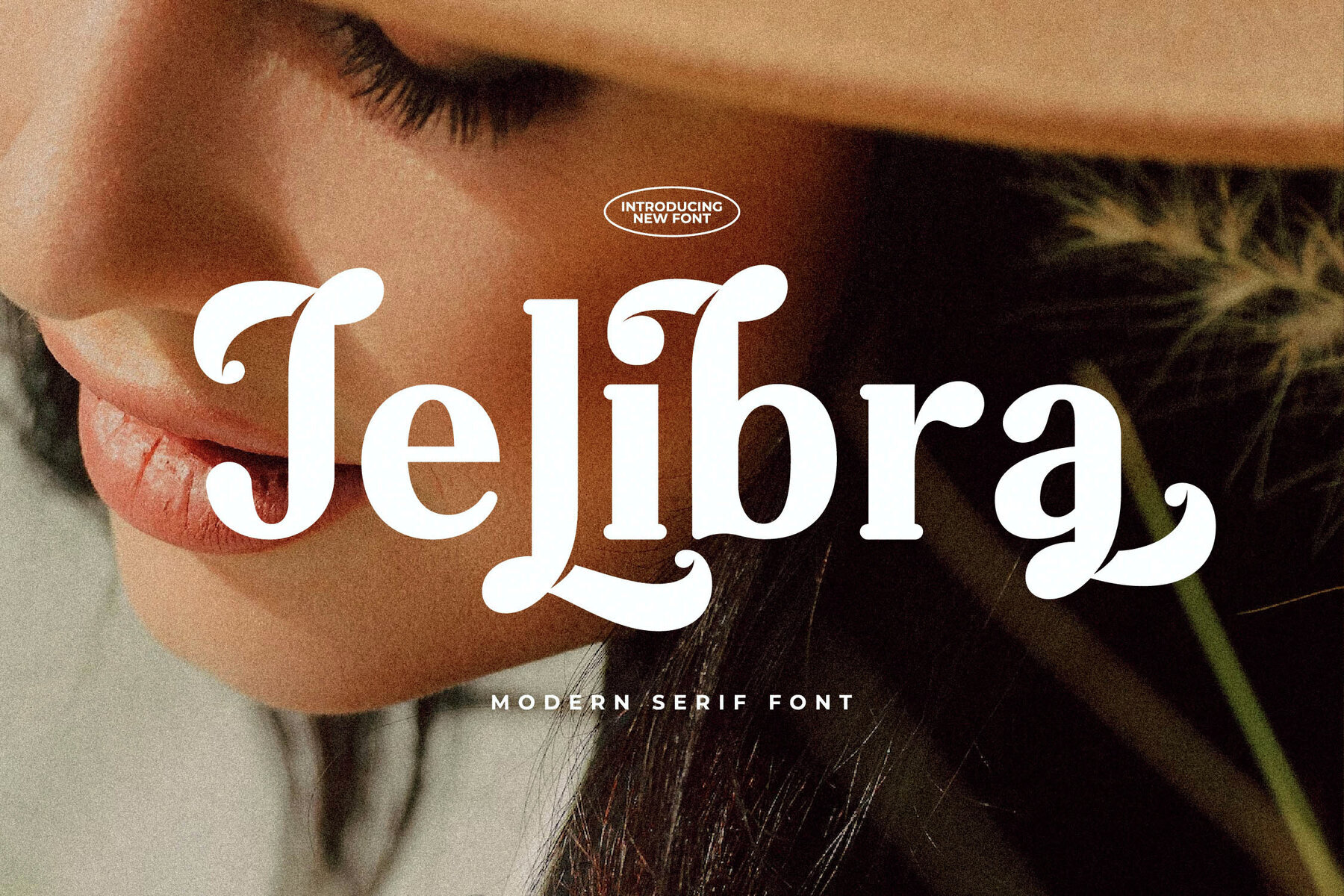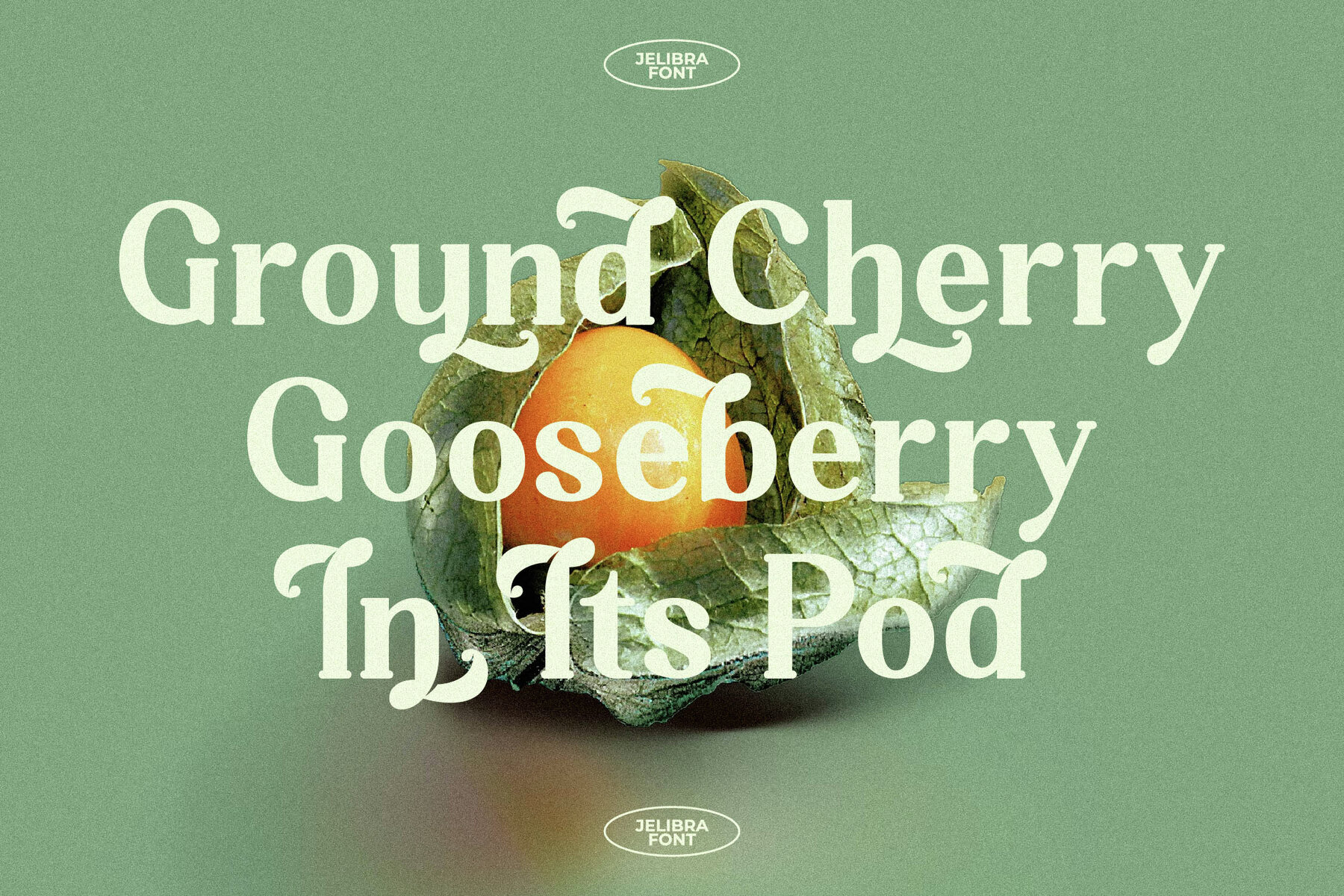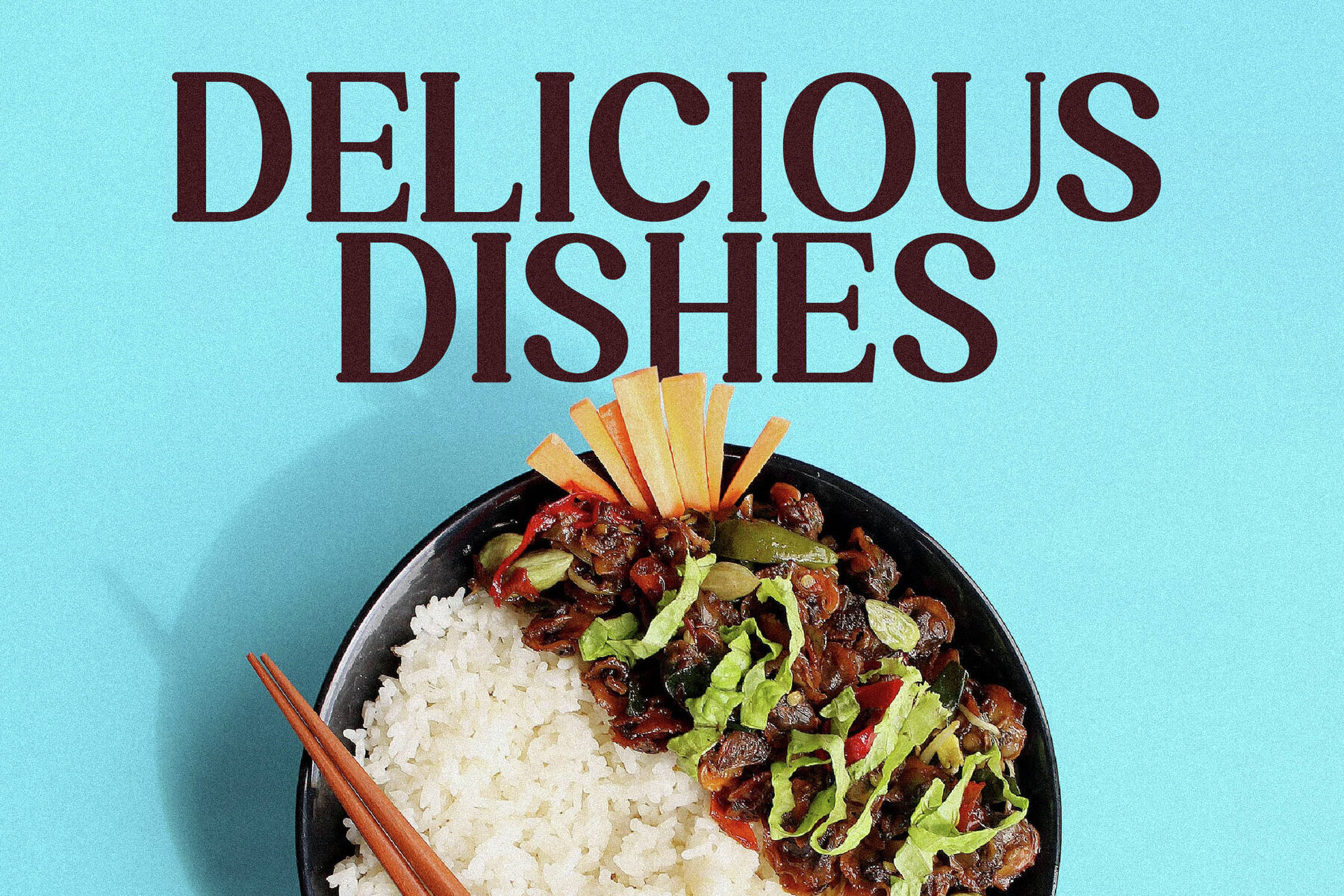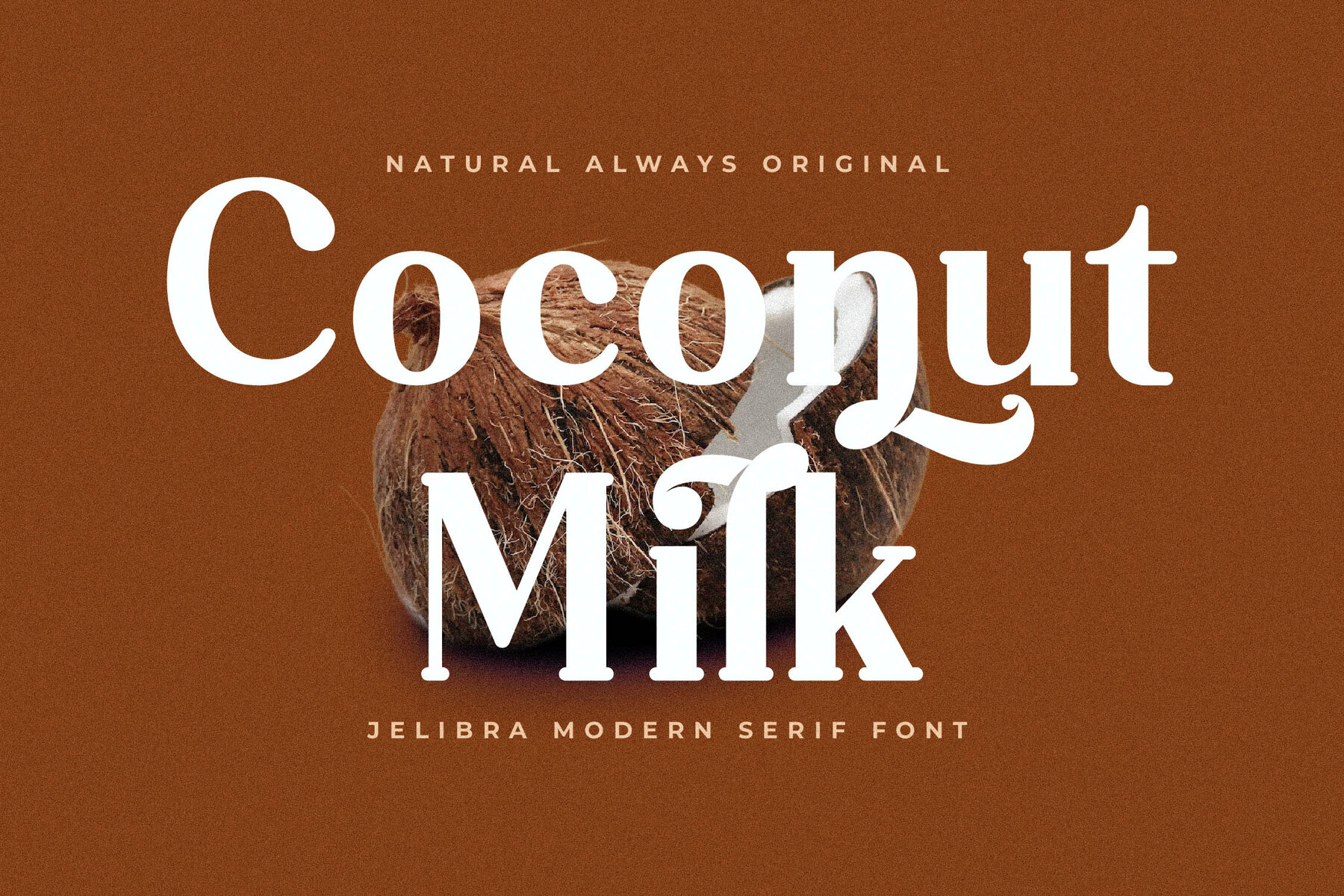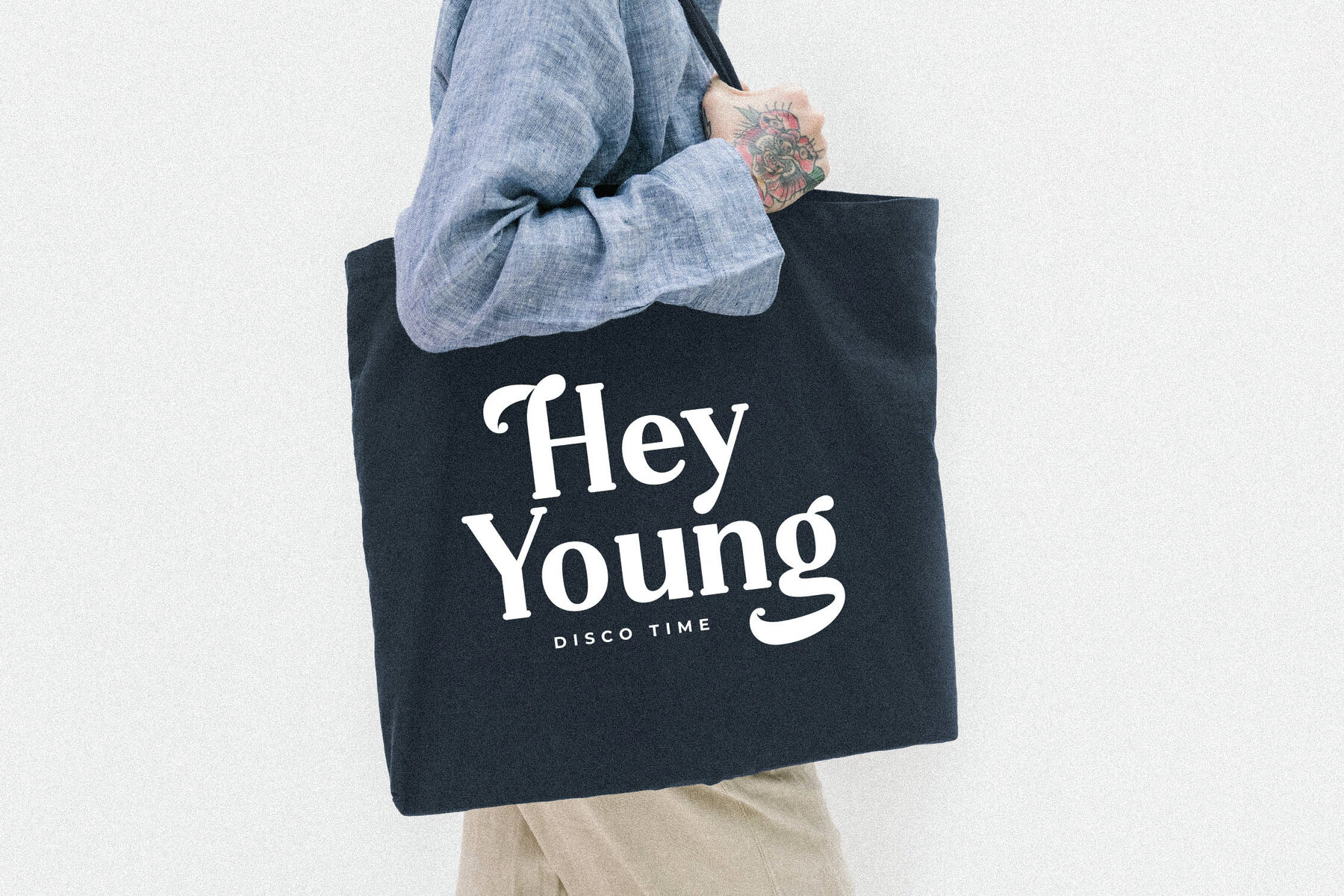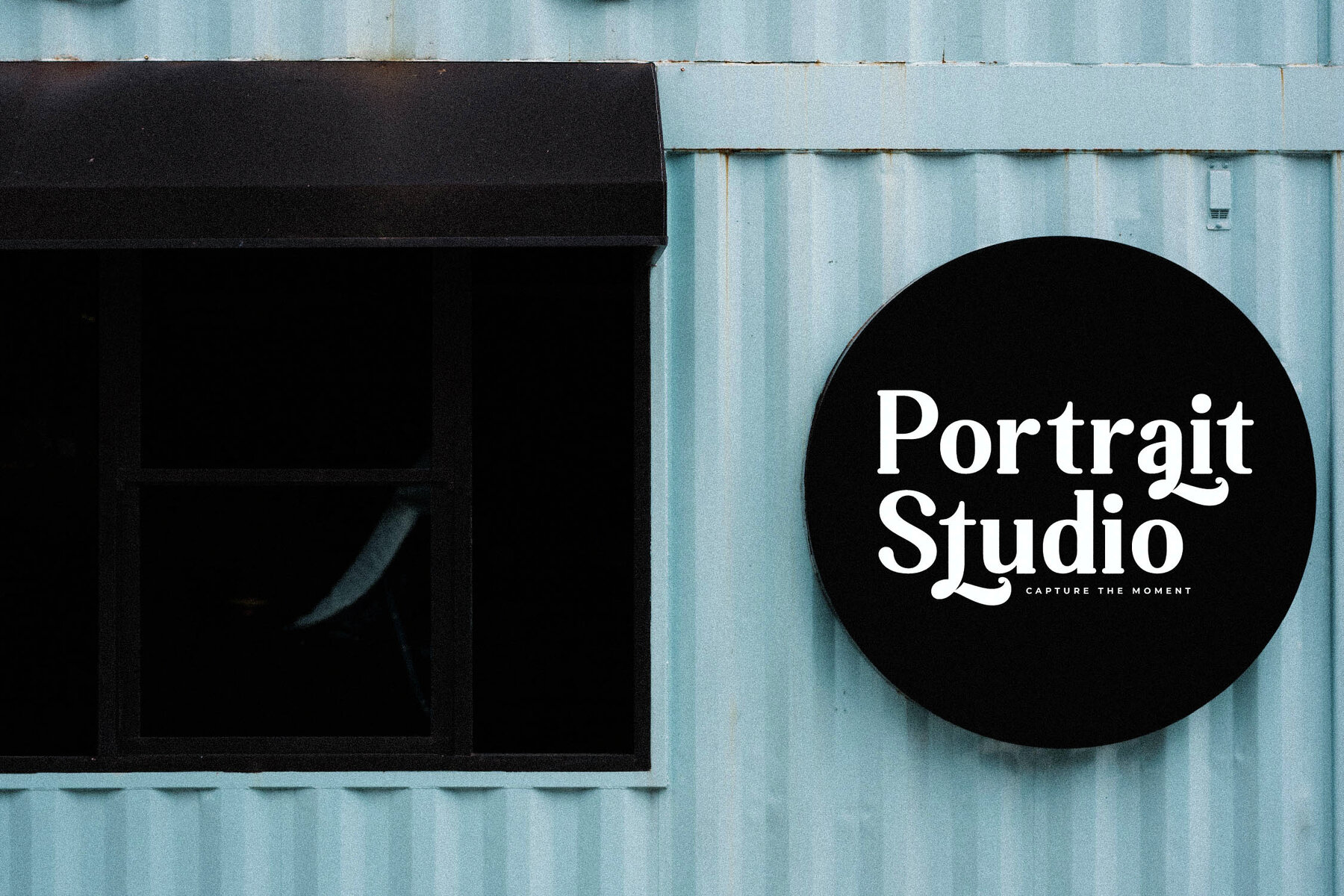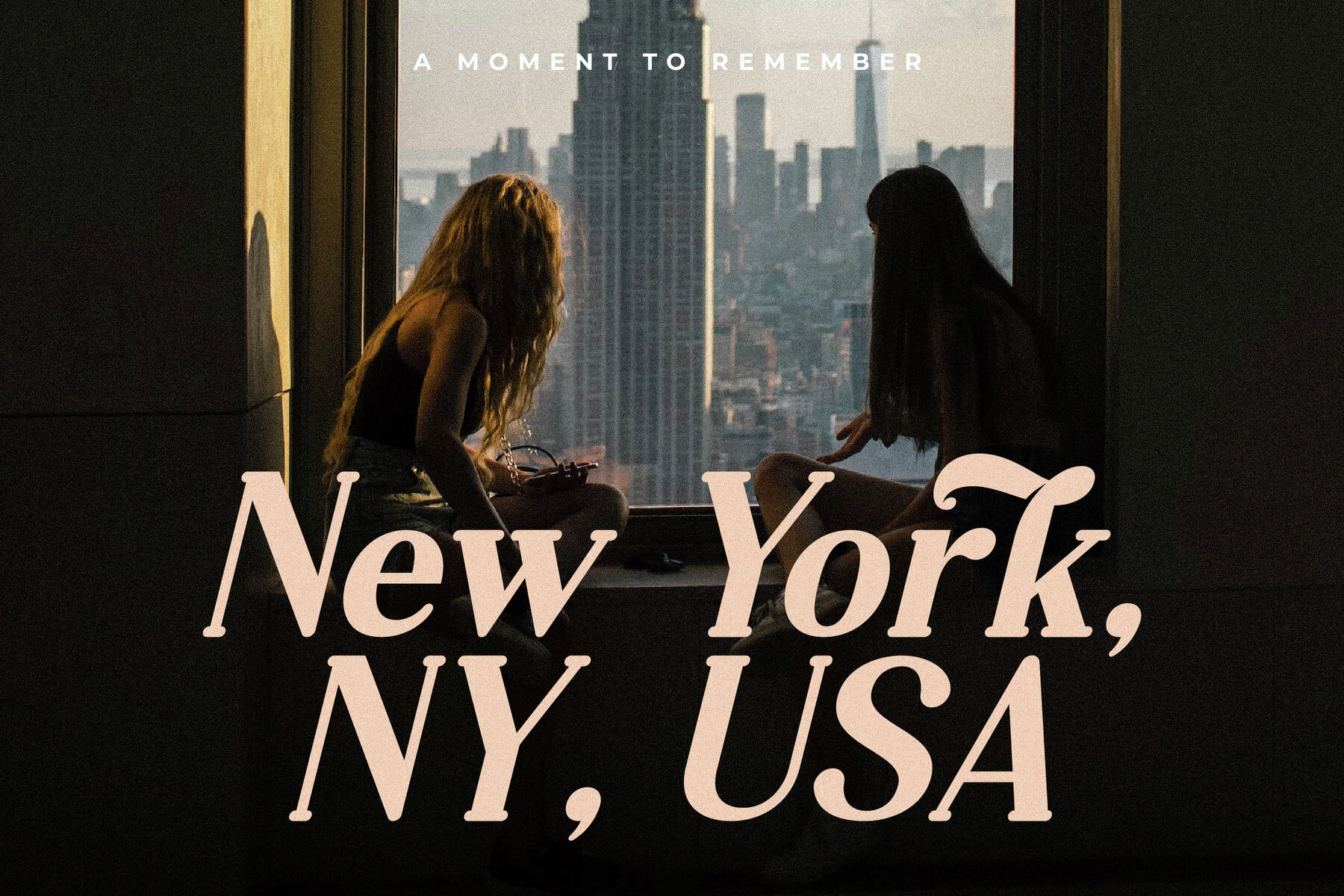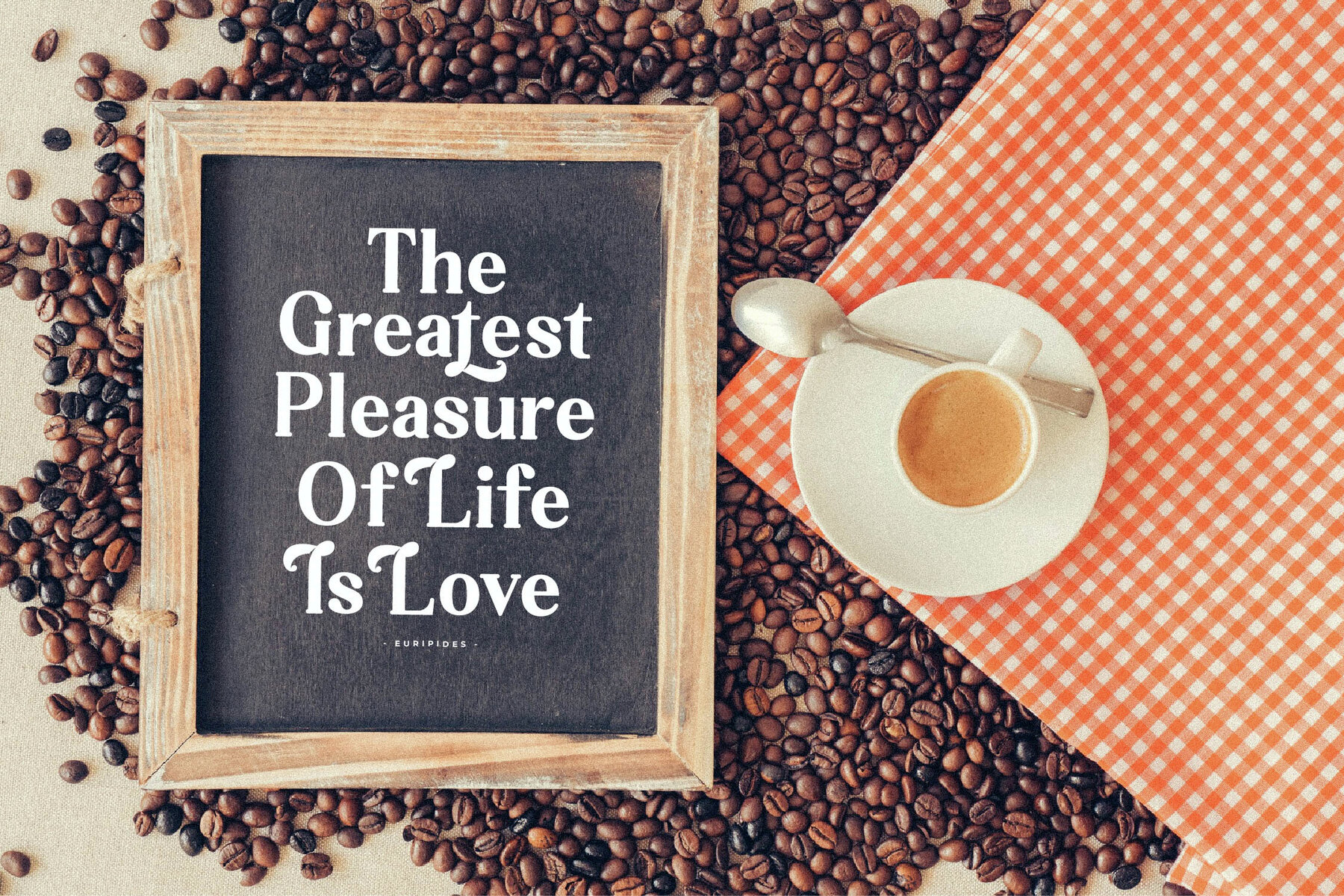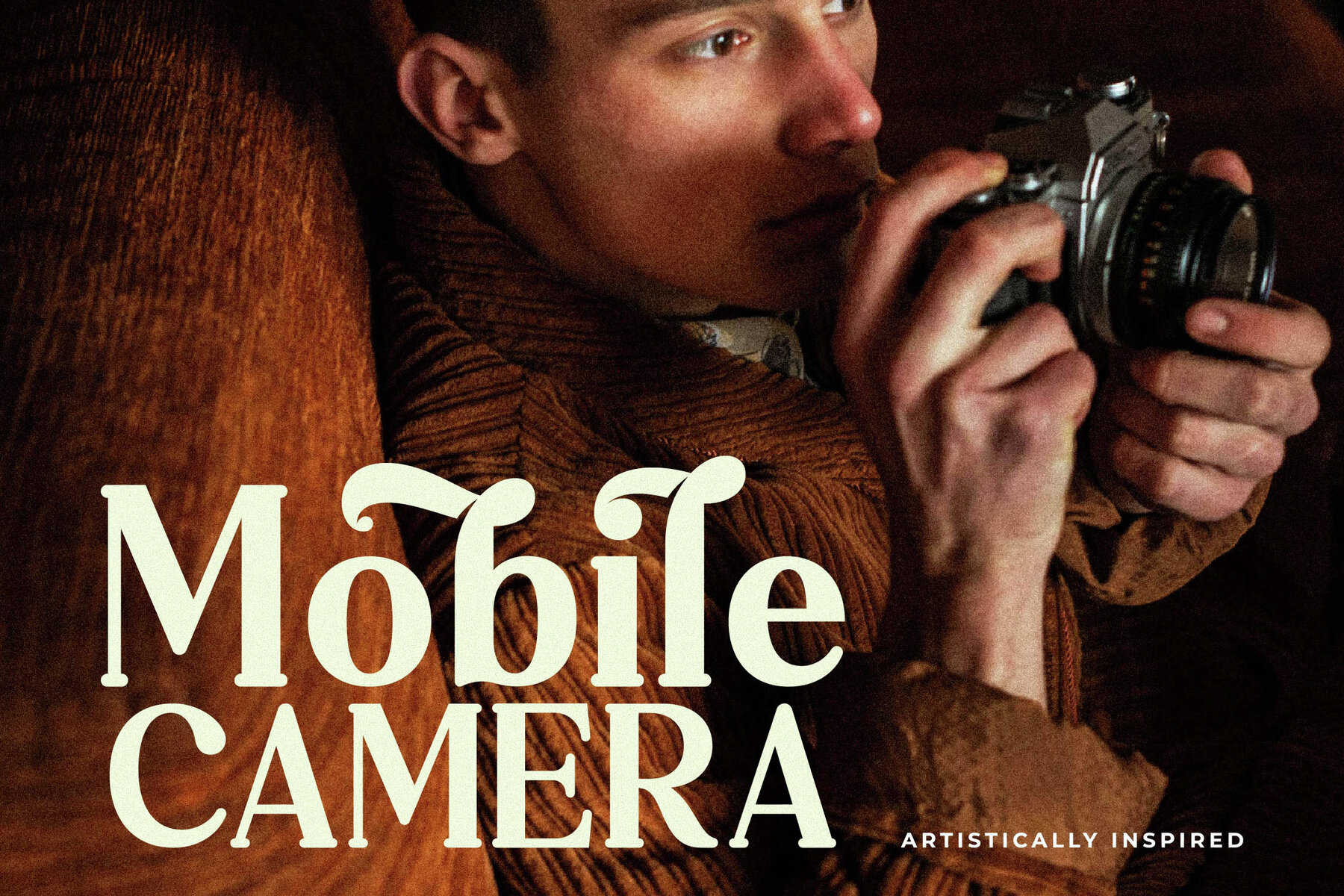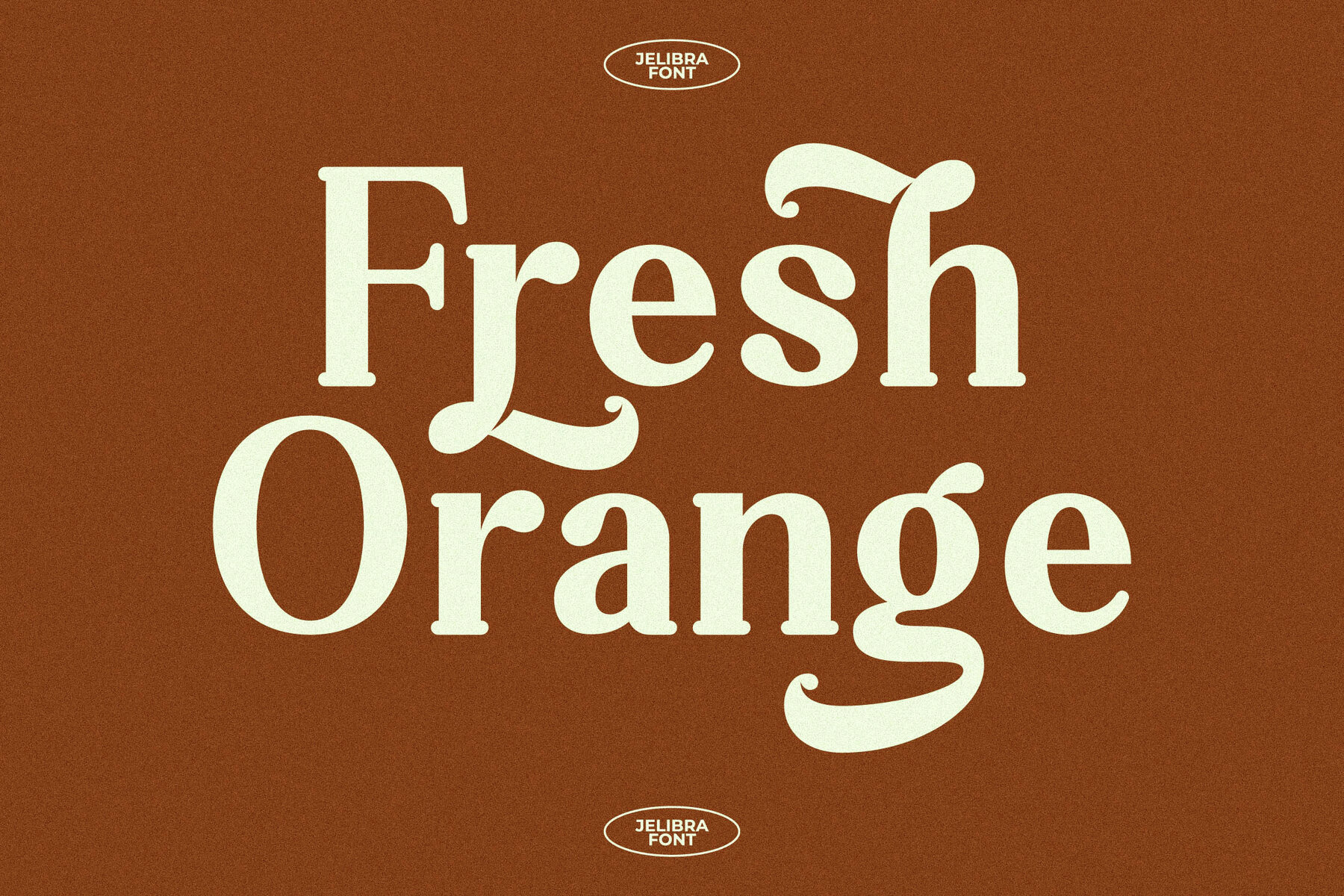
Jelibra Font
Discover Jelibra, a serif typeface meticulously crafted by Storytype Studio, combining modern and classic aesthetics. This typeface exudes a unique and refined style, making it an excellent choice for luxury logos, book and movie titles, fashion brands, magazines, and more. Elevate your designs with the sophisticated charm of Jelibra.Jelibra Typeface: Timeless Elegance